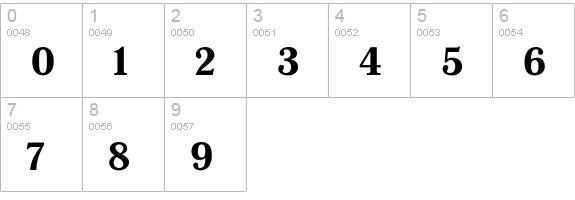
PM QuantAntiqua Bold Cyrillic Font Details
PM QuantAntiqua Bold Cyrillic is a strong, high-contrast variant in the PM typeface family \xE2\x80\x94 well suited to headlines, attention-grabbing titles, and strong calls-to-action.
PM QuantAntiqua Bold Cyrillic font is a stunning typeface that exudes elegance and sophistication. With its bold and powerful strokes, this font is perfect for making a bold statement in any design project. Whether you're designing a logo, a poster, or a website, PM QuantAntiqua Bold Cyrillic font will surely grab attention and leave a lasting impression. What sets this font apart is its seamless integration of classic and modern design elements. The Cyrillic characters are beautifully crafted, paying homage to the rich history of the Cyrillic script while adding a contemporary twist. The bold weight of the font enhances the readability and makes it suitable for various purposes. One of the best things about PM QuantAntiqua Bold Cyrillic font is that it is freely available to download at FontsMarket.com. This means that you can easily access and use this exceptional font in your projects without any hassle. Whether you're a professional designer or a hobbyist, this font offers a high-quality and versatile option that will elevate your work to new heights. The versatility of PM QuantAntiqua Bold Cyrillic font allows it to be used in a wide range of design projects. From branding and advertising to editorial and web design, this font can seamlessly adapt to any style or concept you have in mind. Its bold and commanding presence adds a touch of sophistication and professionalism to your designs, making it a go-to choice for any creative endeavor. In conclusion, PM QuantAntiqua Bold Cyrillic font is a timeless typeface that combines classic elegance with a modern twist. Its bold weight and beautiful Cyrillic characters make it an excellent choice for any design project. And with the added bonus of being freely available to download at FontsMarket.com, this font is a must-have for every designer looking to make a powerful statement.